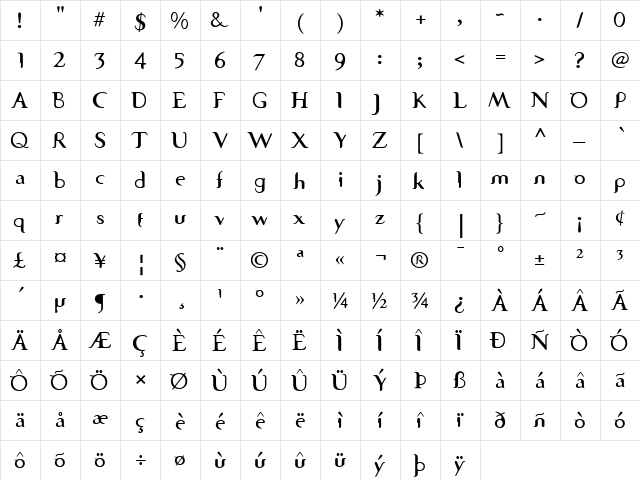
SevenSerifICG Bold
Design Context for SevenSerifICG Typeface
SevenSerifICG carries the refined structure of traditional serif typography, with bracketed terminals and considered proportions that communicate credibility and craft. The heavy weight commands attention and anchors typographic hierarchies.